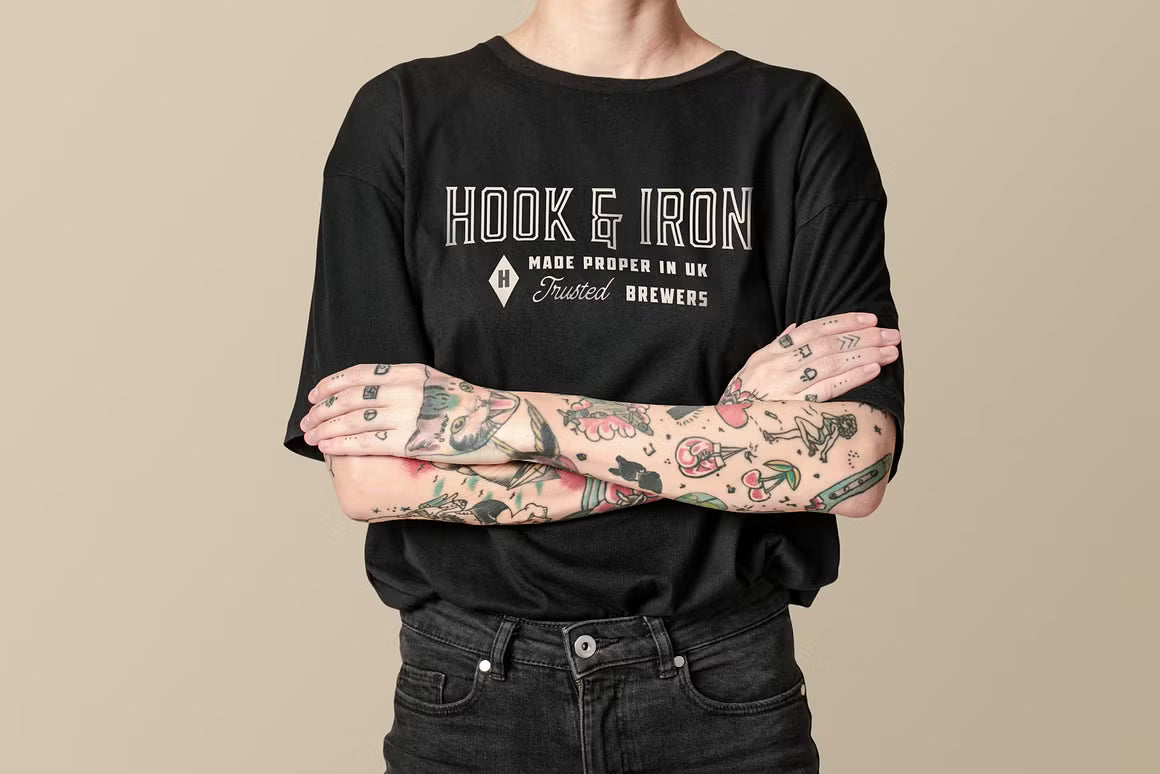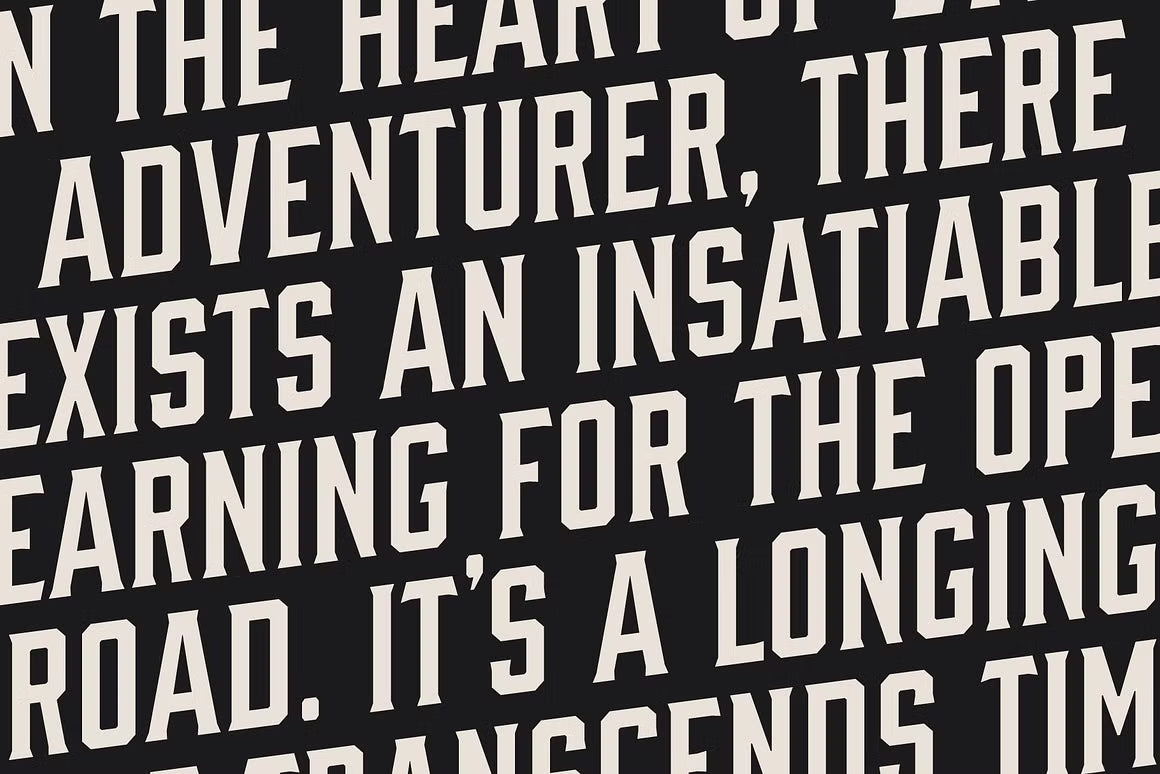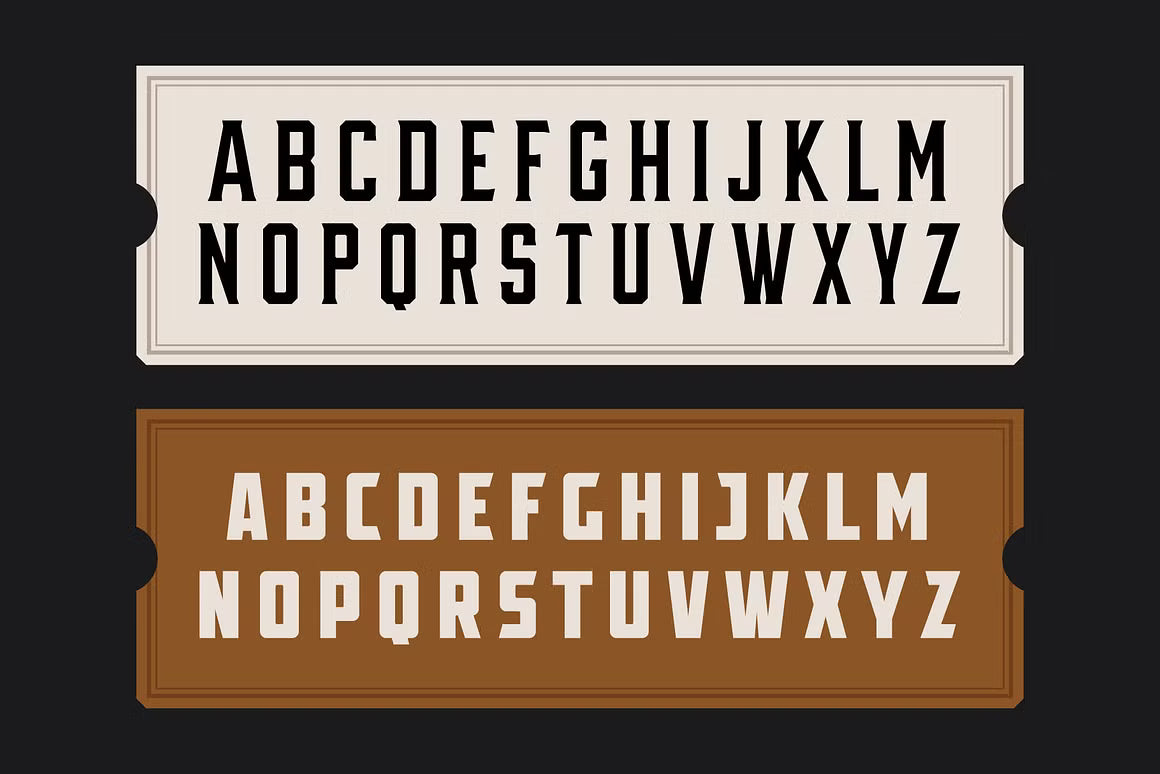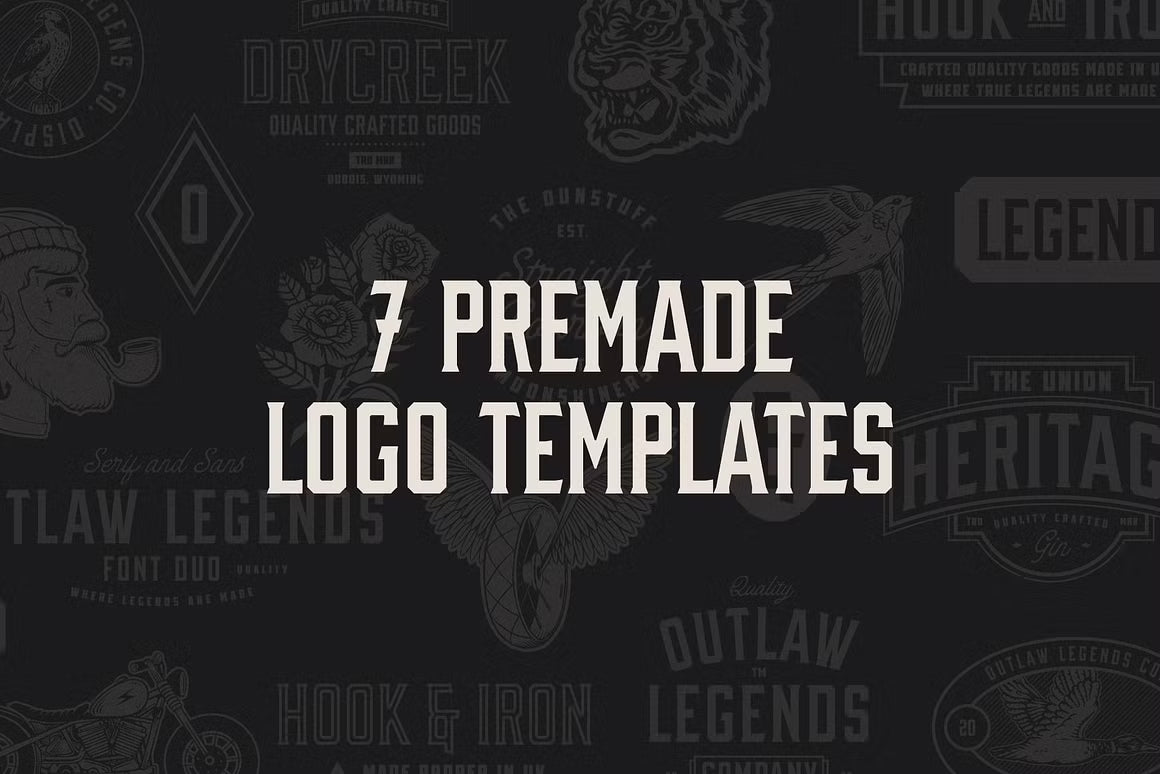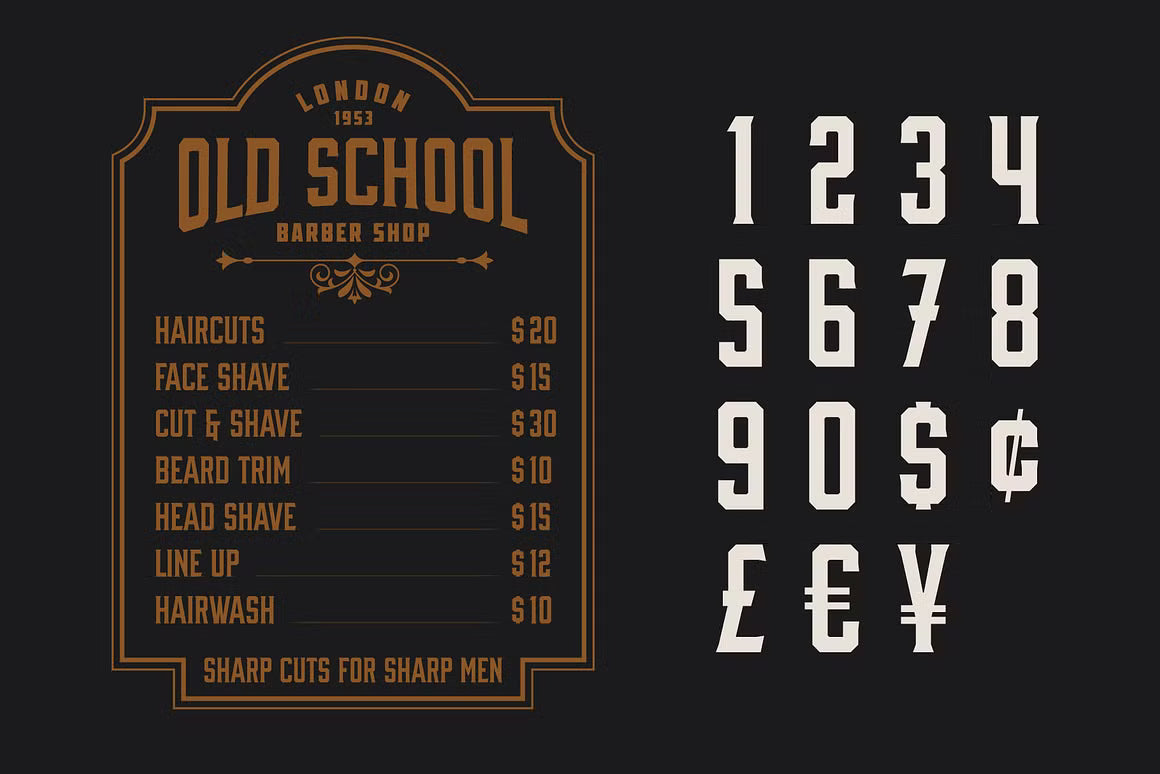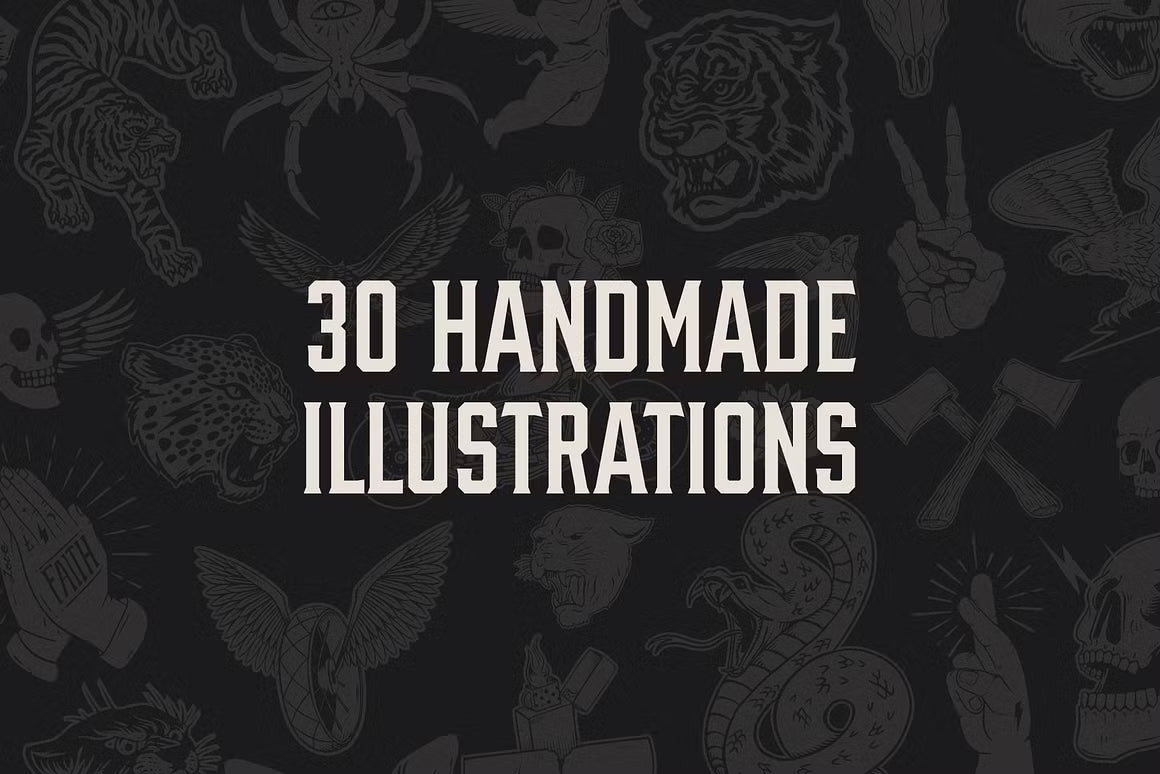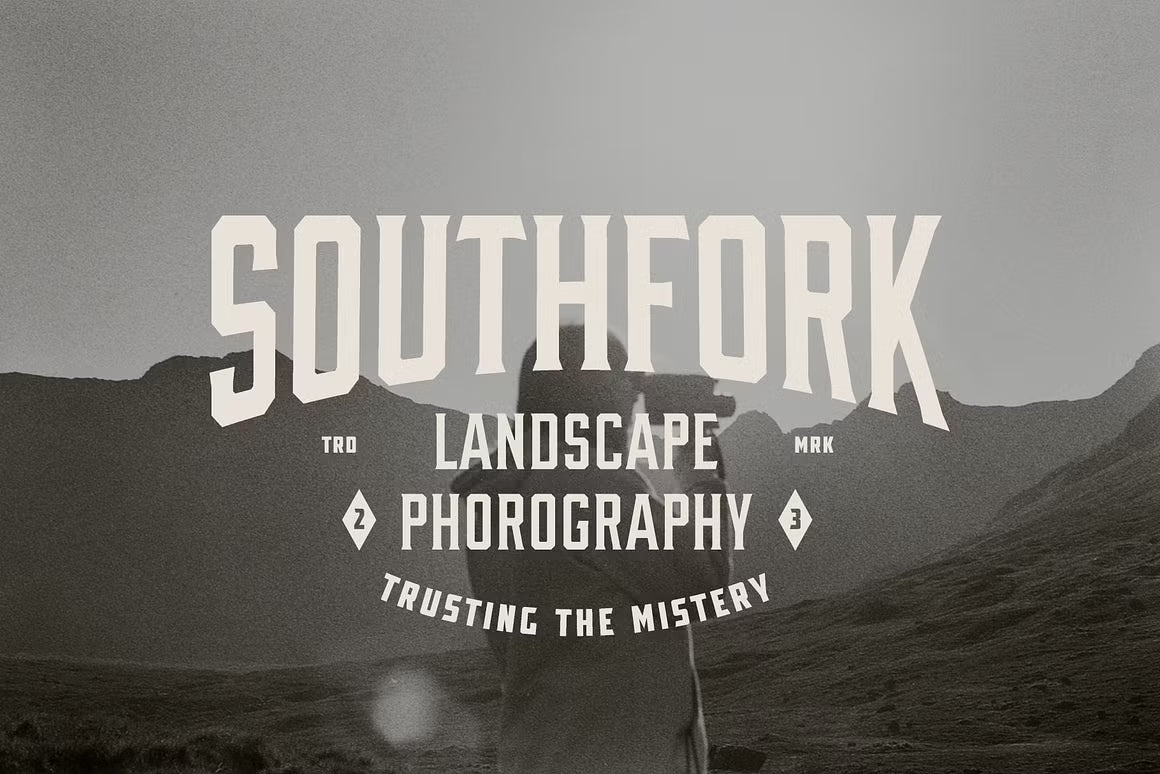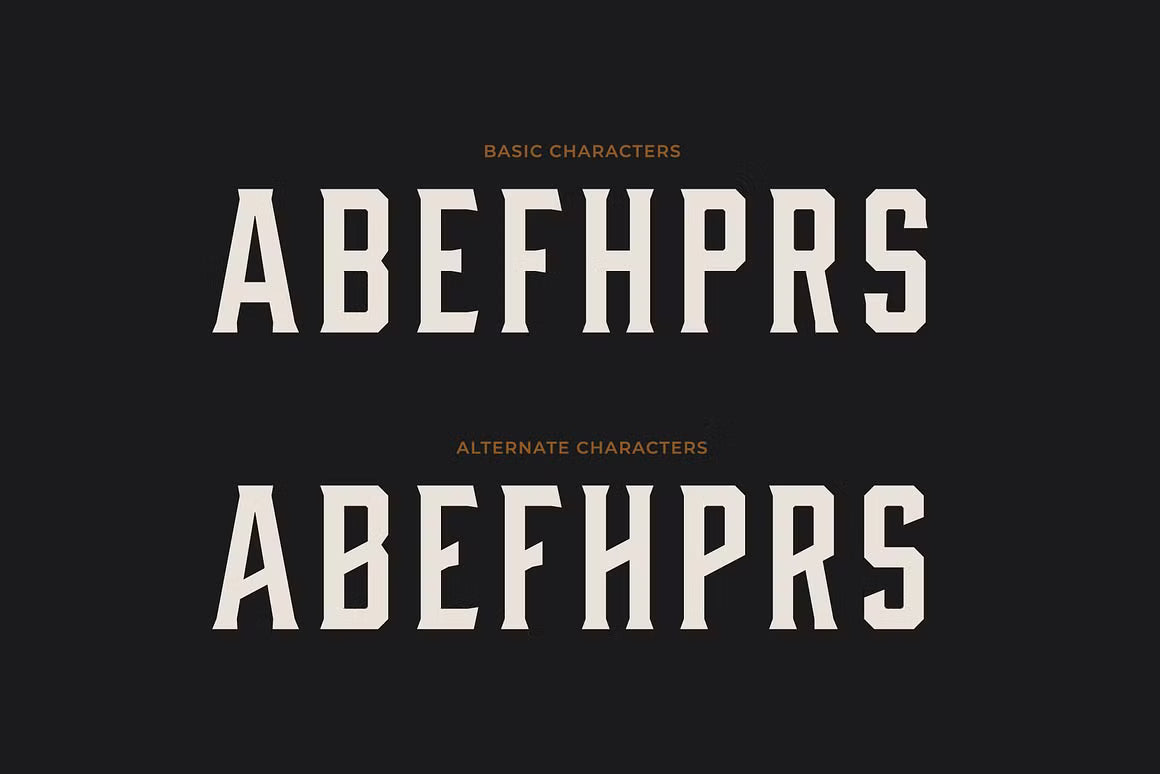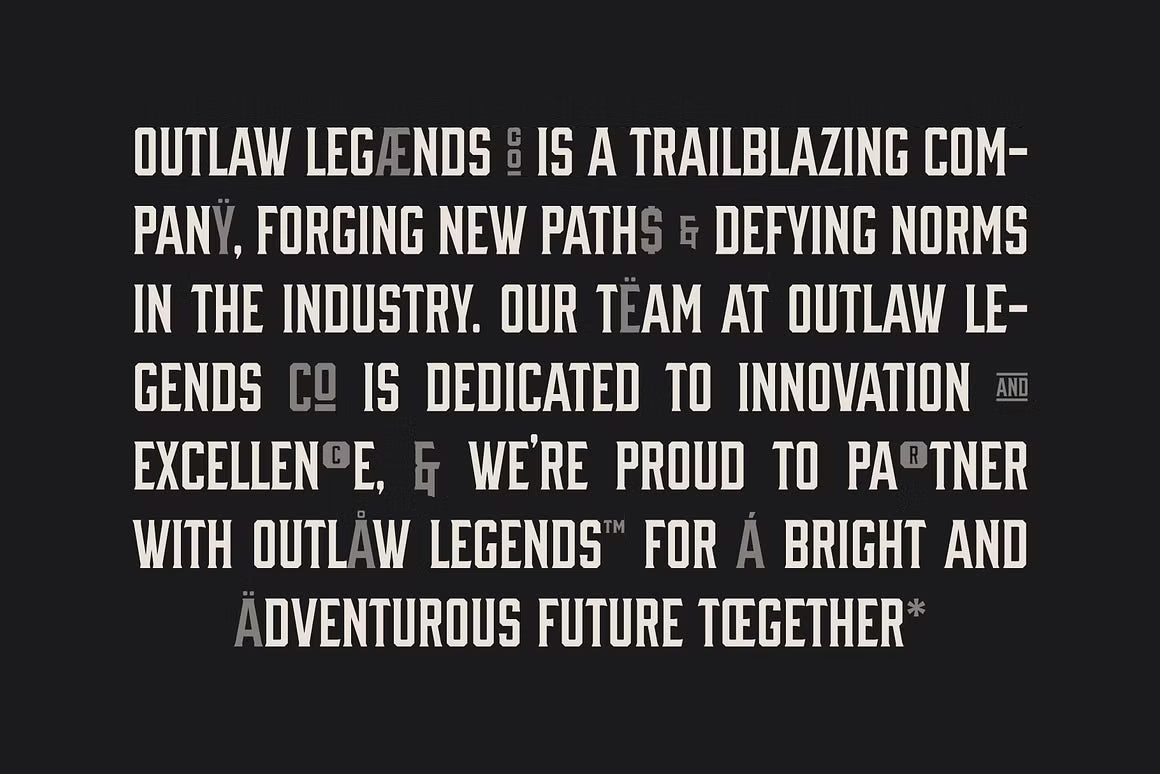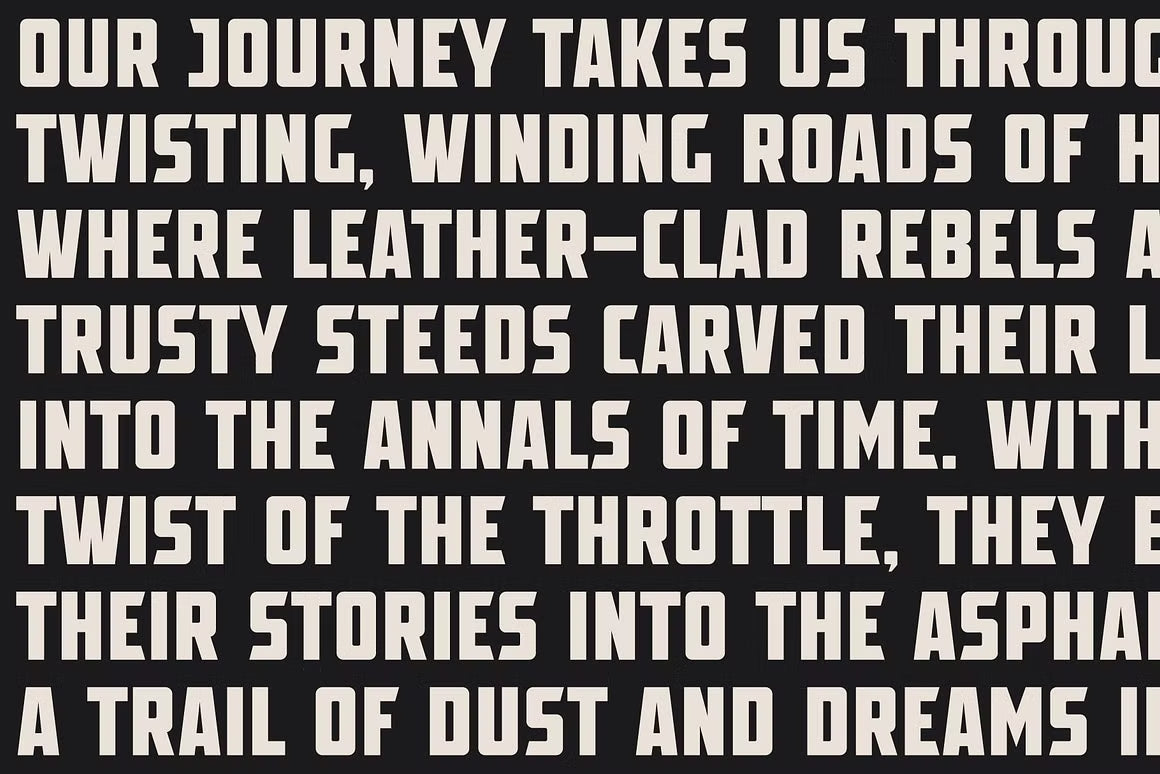
Outlawlegends Sans
Outlawlegends Serif
OUTLAW LEGENDS Font Duo + Extra combines a strong industrial-era Serif with a sleek retro Sans for a powerful, versatile typeface pairing. This duo is perfect for bold branding, logos, t-shirt designs, posters, and projects that need attitude and timeless character.
A complete creative toolkit for designers and brands looking for that rugged outlaw vibe with plenty of ready-to-use assets.
OUTLAW LEGENDS Font Duo + Extra